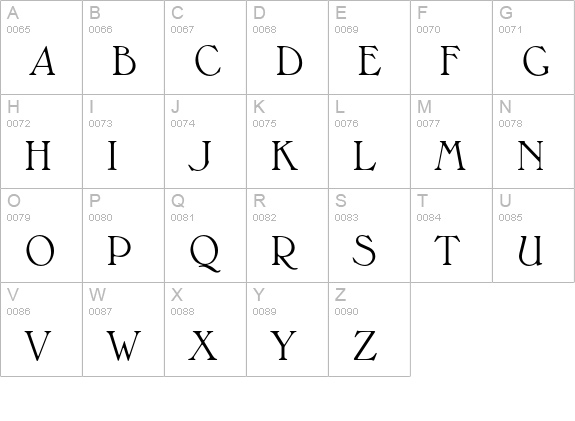
Melbourne-Light Font Details
Melbourne-Light is a refined, elegant variant in the Melbourne typeface family \xE2\x80\x94 well suited to elegant body text, refined sub-headings, and luxury branding.
Melbourne-Light font is a modern and sophisticated typeface that exudes elegance and simplicity. Its clean lines and sleek design make it perfect for a wide range of design projects, from branding to editorial design. The Melbourne-Light font offers a delicate balance between professionalism and creativity, making it a versatile choice for any designer looking to elevate their work. Best of all, Melbourne-Light font is available for free download at FontsMarket.com. This means that you can easily access this beautiful font without any cost, making it a valuable addition to your design toolkit. Whether you're working on a personal project or a client's commission, Melbourne-Light font is sure to impress with its timeless style and effortless charm. Download it today and see the difference it can make in your designs.